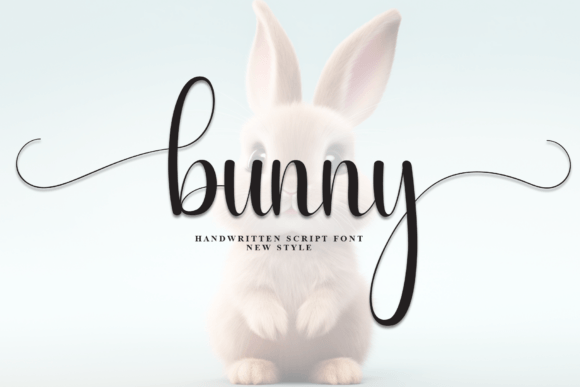
The Bunny Font: A Timeless Elegance for Your Designs
A Personal Review: What I Love About Bunny Font
The Bunny font has quickly become one of my go-to fonts for a variety of design projects. Here’s what I love about it:
- ✨ Elegant and charming: The fluid, graceful strokes of the Bunny font add a personal and sophisticated touch to any design.
- ✅ Versatile: Perfect for branding, invitations, stationery, and more.
- 💫 Timeless: The smooth curves and natural flow create a refined look that never goes out of style.
While the Bunny font is incredibly versatile, there are a few things to keep in mind:
- ⚠️ Limited use in very formal or corporate designs: The Bunny font is best suited for creative and luxury projects.
- 🤔 May not be suitable for very small text sizes: The elegant strokes can become lost at smaller sizes.
The Bunny font was designed with the intention of creating a elegant and charming script font that would add a personal touch to any design. Inspired by classic calligraphy and modern typography, the Bunny font is the perfect blend of sophistication and playfulness. The designer aimed to create a font that would be versatile and easy to use, making it perfect for a range of design projects.
| What type of projects is the Bunny font best suited for? | The Bunny font is perfect for branding, invitations, stationery, and other creative projects that require an elegant and sophisticated touch. |
| Is the Bunny font available in different weights or styles? | The Bunny font comes in a range of styles, including regular, bold, and italic. You can experiment with different weights and styles to add more depth to your design. |
| Can I use the Bunny font in my social media graphics? | Absolutely! The Bunny font is perfect for social media graphics, adding a touch of elegance and sophistication to your posts and stories. |